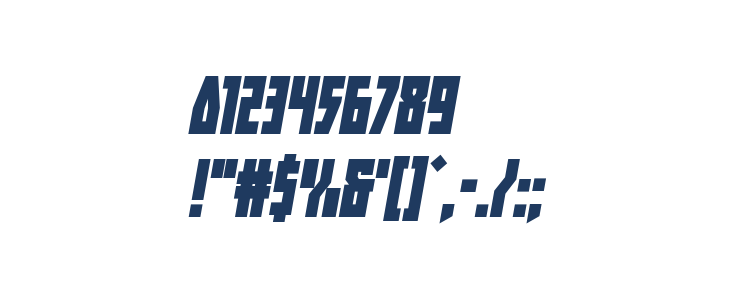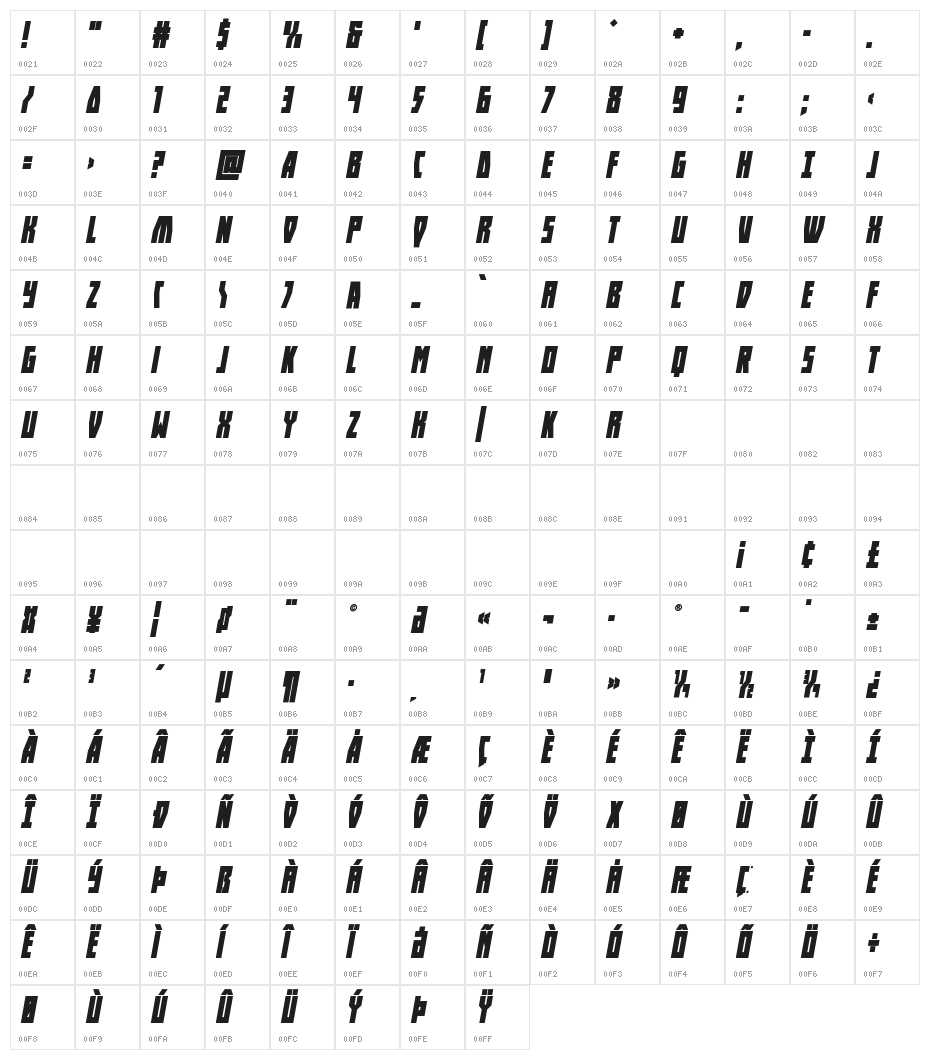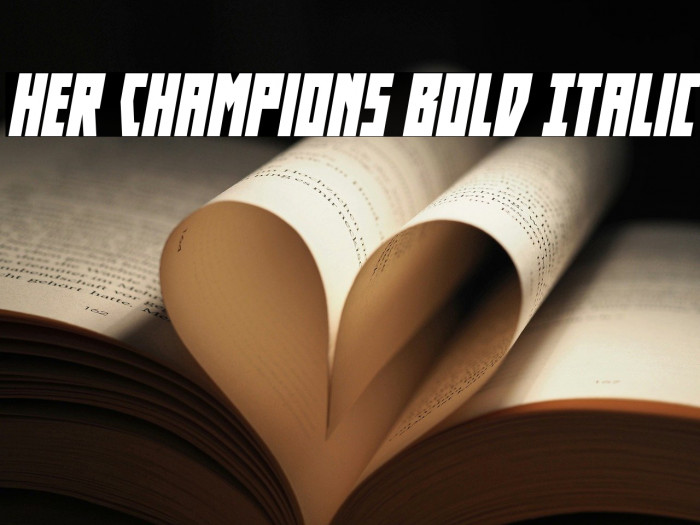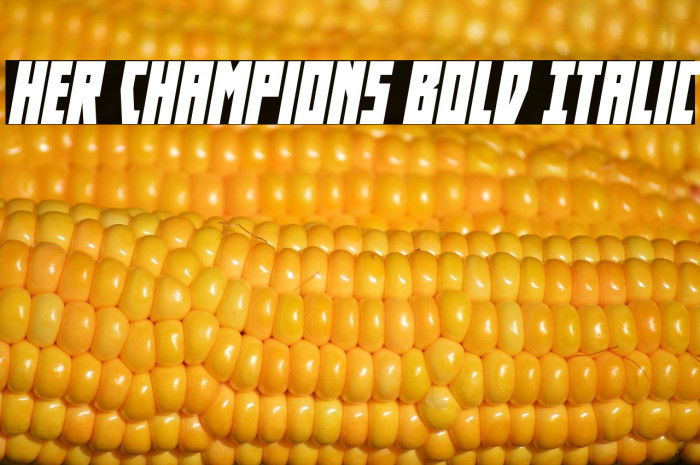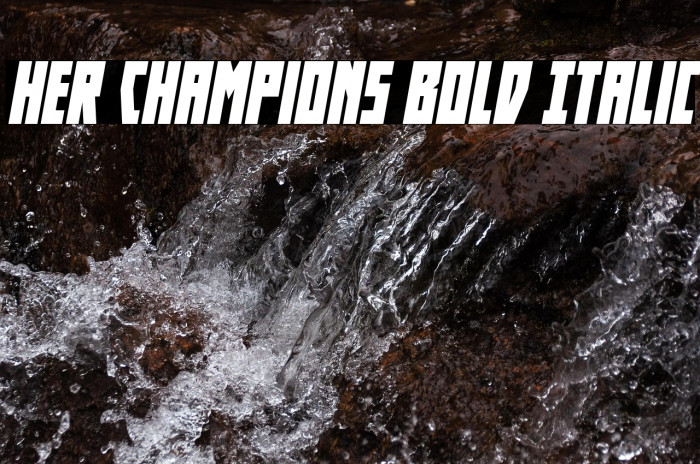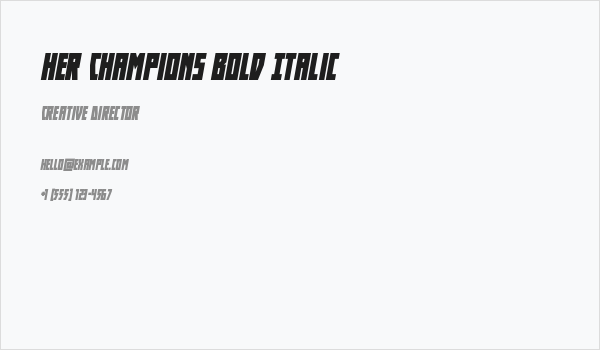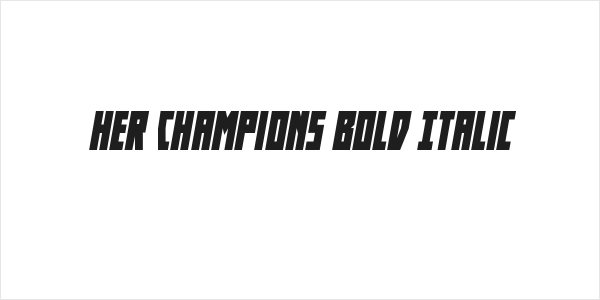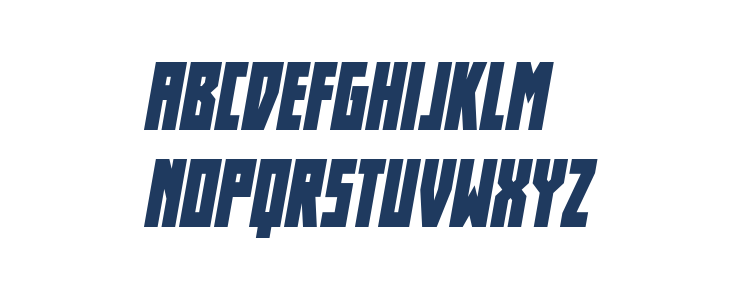
Her Champions Bold Italic Font
Her Champions Bold Italic Description
This font features a bold and italicized style with a strong, angular design. The characters are sharply defined with a distinct slant, giving them a dynamic and energetic appearance. The uppercase letters are prominent and commanding, while the lowercase letters maintain the same boldness and slant. The numerals are equally bold, ensuring consistency across all characters. Special characters are included, matching the overall bold and italicized theme. This font is designed to stand out, making it ideal for attention-grabbing headlines and impactful designs.